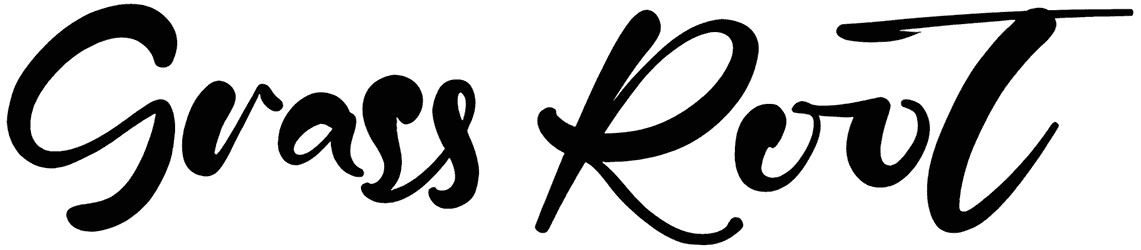
Grass Root Font
Let’s beautify your coming layout with a distinct handwritten font and its fluffy and artistic form. Grass Root has casual brush-drawn letters that can create a lovely vibe. This script font has an almost full backup of characters, which means it could be used for any design, like a poster, logo, illustration, or the like.